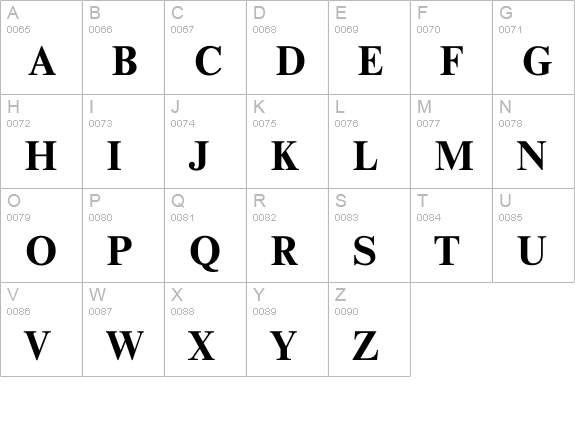
Timex Bold Font Details
Timex Bold is a strong, high-contrast variant in the Timex typeface family \xE2\x80\x94 well suited to headlines, attention-grabbing titles, and strong calls-to-action.
Introducing Timex Bold, a captivating and dynamic font that effortlessly commands attention. This modern typeface exudes confidence and boldness, making it the perfect choice for designers, creatives, and anyone seeking to make a powerful statement. Timex Bold boasts a unique combination of sleek lines and sharp edges, resulting in a visually striking aesthetic that is both contemporary and timeless. Its strong and assertive presence adds impact to any project, whether it be a logo, headline, or branding design. But what sets Timex Bold apart is not just its stunning visual appeal. It is also the fact that it is freely available for download at FontsMarket.com. Yes, you read that right - this incredible font is completely free to use and explore. No need to break the bank or compromise on quality, as Timex Bold provides both style and accessibility. With its wide range of weights and styles, Timex Bold offers endless possibilities for your creative endeavors. Whether you prefer a bold and commanding look or a more subtle and refined touch, this font has got you covered. Its versatility allows for seamless integration into various design projects, ensuring that your message is delivered with impact and clarity. So why wait? Download Timex Bold today from FontsMarket.com and elevate your designs to new heights. Unleash your creativity and make a statement that cannot be ignored. With Timex Bold, the possibilities are limitless, and the freedom to create is yours for the taking.